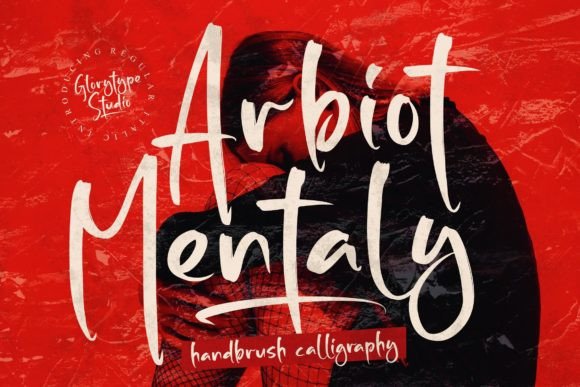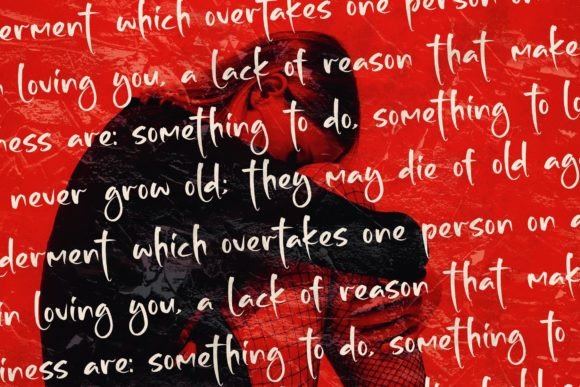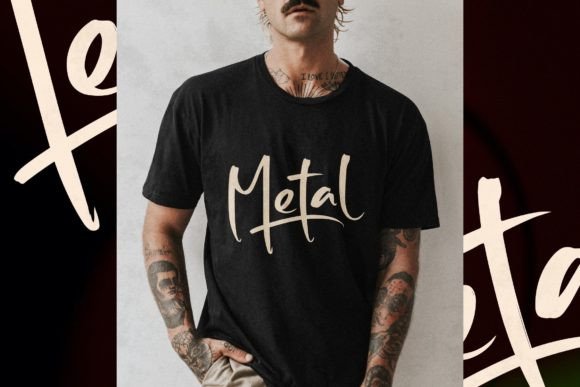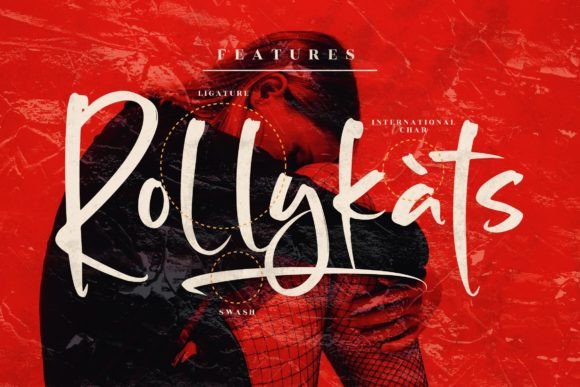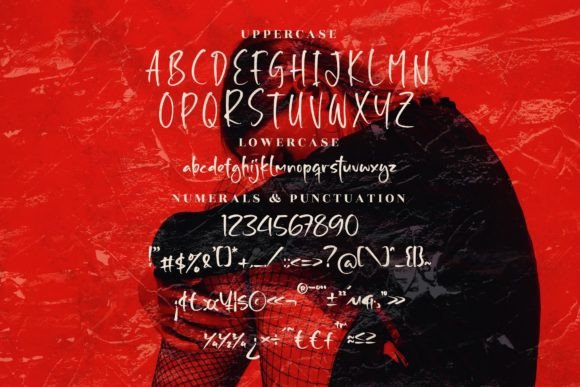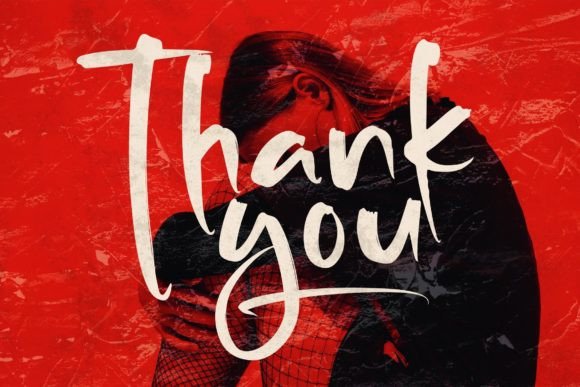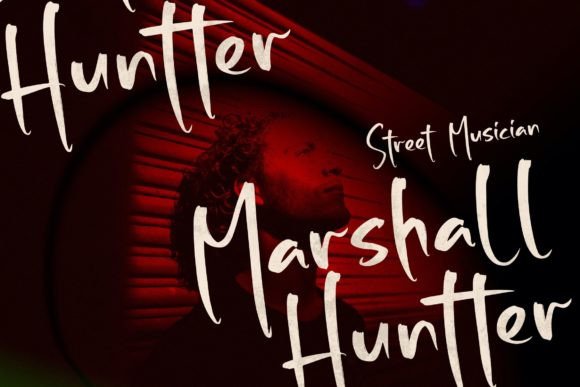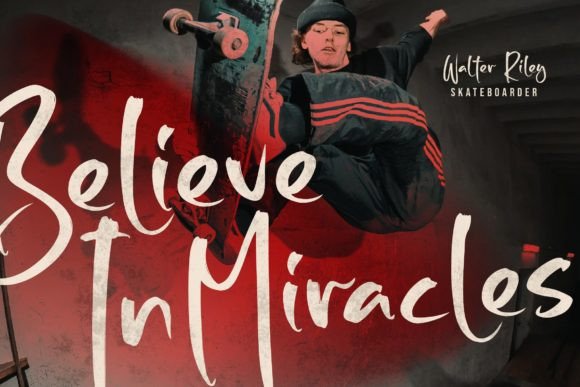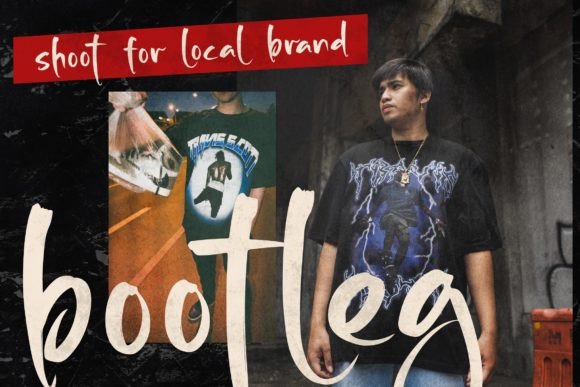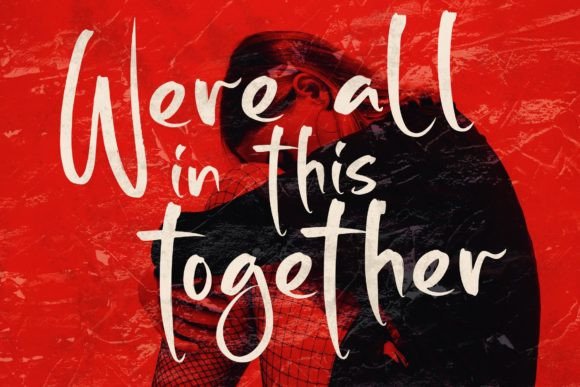
Arbiot Mentaly Font
“Arbiot Mentaly” is not just a font; it’s an embodiment of creativity and expression. Crafted with a brush, its handwritten charm exudes authenticity and uniqueness, making it a perfect choice for a myriad of projects. Whether you’re working on logos, branding materials, homeware designs, product packaging, or even personalized items like mugs and T-shirts, Arbiot Mentaly adds a distinctive flair that elevates your creations to new heights.
Imagine your brand’s identity beautifully captured in the strokes of this handwritten font. Arbiot Mentaly effortlessly adapts to various mediums, making it an ideal choice for quotes that inspire, posters that captivate, and shopping bags that leave a lasting impression. Its versatility knows no bounds, extending to book covers that beckon readers, name cards that make a statement, and invitation cards that set the tone for unforgettable events.
Greeting cards come to life with Arbiot Mentaly, where each word feels like a warm embrace, and labels gain a touch of sophistication, enhancing the appeal of your products. Photography finds a perfect companion in this font, adding subtle watermarking that protects your art while complementing its aesthetic. Special events, be it weddings, birthdays, or corporate gatherings, acquire an extra layer of charm when Arbiot Mentaly graces the invitations and decor.
In a world where creativity is key, Arbiot Mentaly becomes your trusted ally, providing the artistic touch your projects deserve. Its brush strokes carry a sense of personality, reminding viewers that behind every design, there’s a story waiting to be told. This font transcends the boundaries of mere letters; it encapsulates emotions, dreams, and aspirations.
Picture your ideas taking flight, guided by the elegant curves and bold lines of Arbiot Mentaly. As you embark on your creative journey, let this font be the muse that fuels your imagination. Its handwritten aesthetic adds a human touch to the digital world, forging connections and resonating with audiences on a deeper level.
Arbiot Mentaly isn’t just a typographic choice; it’s a design philosophy. It represents the fusion of art and functionality, where letters transform into visual masterpieces. Choosing this font isn’t just a decision; it’s a statement—a statement that your projects deserve the best, the most expressive, and the most captivating.
So, whether you’re a seasoned designer shaping the future of brands or an individual with a passion for creativity, Arbiot Mentaly is your companion in the world of design. It’s more than a font; it’s an experience—an experience that turns ordinary projects into extraordinary works of art. Let Arbiot Mentaly be the brush that paints your imagination and the handwritten touch that leaves a lasting impression.